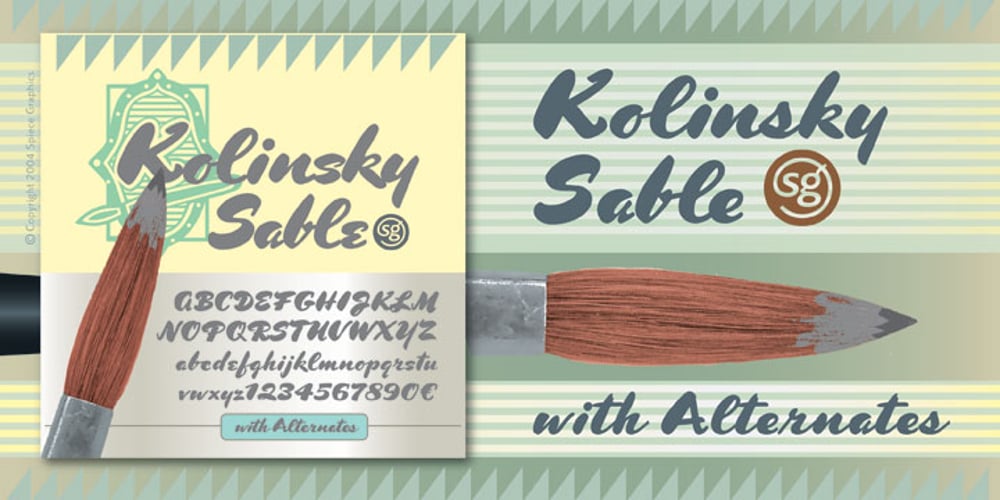
Kolinsky Sable SG Font Family was designed by Jim Spiece, Charles P Bluemlein and published by Spiece Graphics. Kolinsky Sable SG contains 2 styles and family package options. Here’s what happens when you use a fully-loaded Asian mink Kolinsky brush to imitate an old script letter style of the World War II era. Originally published in 1944, Charles P. Bluemlein’s enchanting design has the same bounce, warmth, and charm found in many old magazines and movie titles of that period. Two digital versions are provided in the set. Kolinsky Sable Heavy with Alternates retains Bluemlein’s original heavy, contrasting capital letters. However, some modifications, such as less severe slanting and looser letterspacing, are also present. You will find this version very helpful when setting in small sizes. If you prefer the tighter, brush-lettered look of the times, try Kolinsky Sable Two Heavy. Caps are somewhat lighter making for generally better color overall. This version is ideal for headlines and logos. Alternate capital and lowercase characters plus an alternate set of small numbers have been provided. Fine-tuning is possible since many lowercase characters are interchangeable. Kolinsky Sable Heavy and Kolinsky Sable Two Heavy are now available in the OpenType Std format. Some new characters have been added to these OpenType versions including stylistic alternates and historical forms. These advanced features work in current versions of Adobe Creative Suite InDesign, Creative Suite Illustrator, and Quark XPress. Check for OpenType advanced feature support in other applications as it gradually becomes available with upgrades.